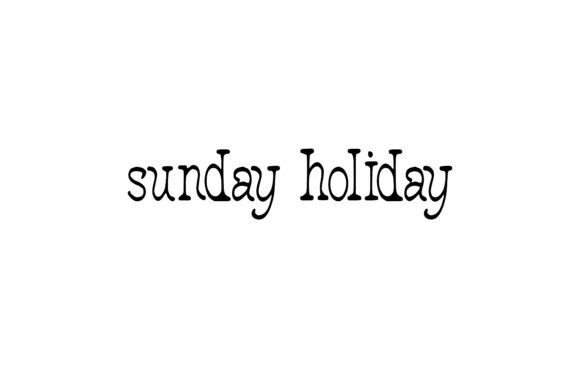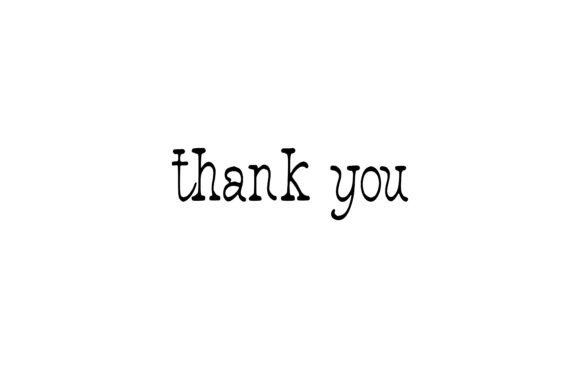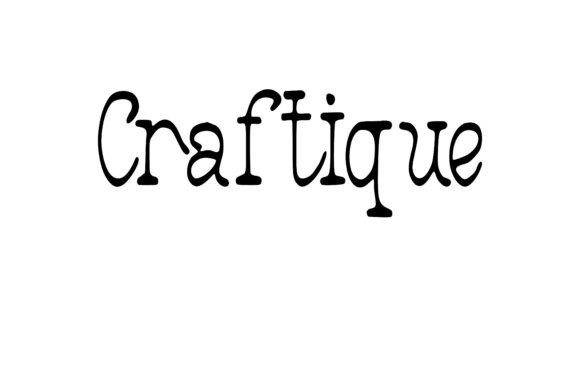
Craftique Font: Elevate Your Designs with a Romantic Handwritten Touch
In the world of typography, a well-crafted font can make all the difference in bringing your creative ideas to life. If you’re a designer, crafter, or DIY enthusiast looking for a unique and authentic handwritten font with a romantic touch, look no further than Craftique. This beautifully designed font is poised to become your new favorite, offering a versatile and elegant solution for a wide range of design projects.
The Charm of Craftique Font
Craftique font is an authentic handwritten font that exudes a sense of romance and sophistication. Its expertly crafted design ensures that it is not only visually stunning but also highly legible, making it perfect for use as both title and body text. Whether you’re working on a magazine headline, social media graphic, branding materials, wedding invitation, or card, Craftique font is sure to add a touch of elegance and whimsy to your design.
Key Features of Craftique Font
- Authentic Handwritten Style: Craftique font boasts an authentic handwritten style that adds a personal touch to any design.
- Romantic Touch: With its elegant and flowing lines, Craftique font brings a romantic touch to your designs, making it perfect for wedding invitations, love letters, and other sentimental projects.
- High Legibility: Despite its ornate appearance, Craftique font is highly legible, making it suitable for use as both title and body text.
- Versatility: From magazine headlines to social media graphics, branding materials to wedding invitations, Craftique font is incredibly versatile and can be used for a wide range of design projects.
Design Possibilities with Craftique Font
The possibilities are endless when it comes to using Craftique font in your designs. Here are a few ideas to get you started:
- Magazine Headlines: Use Craftique font to add a touch of elegance and sophistication to your magazine headlines.
- Social Media Graphics: Create eye-catching social media graphics with Craftique font that are sure to grab the attention of your followers.
- Branding Materials: Incorporate Craftique font into your branding materials, such as business cards, letterheads, and brochures, to add a personal touch.
- Wedding Invitations: Make your wedding invitations truly special with Craftique font, which adds a romantic and whimsical touch.
- Cards and Stationery: Use Craftique font to create beautiful cards and stationery for special occasions, such as birthdays, anniversaries, and holidays.
Why Choose Craftique Font?
With so many fonts available, why choose Craftique? Here are just a few reasons why Craftique font stands out from the crowd:
- Unique and Authentic: Craftique font is a unique and authentic handwritten font that will set your designs apart from the rest.
- Elegant and Sophisticated: With its elegant and sophisticated design, Craftique font is perfect for designers and crafters who want to add a touch of luxury to their work.
- Highly Versatile: Craftique font is incredibly versatile and can be used for a wide range of design projects, from print to digital.
In conclusion, Craftique font is a beautiful and authentic handwritten font with a romantic touch that is sure to elevate your designs to the next level. With its elegant and sophisticated design, high legibility, and versatility, Craftique font is perfect for designers, crafters, and DIY enthusiasts who want to add a personal touch to their work. Whether you’re working on a magazine headline, social media graphic, branding materials, wedding invitation, or card, Craftique font is the perfect choice.